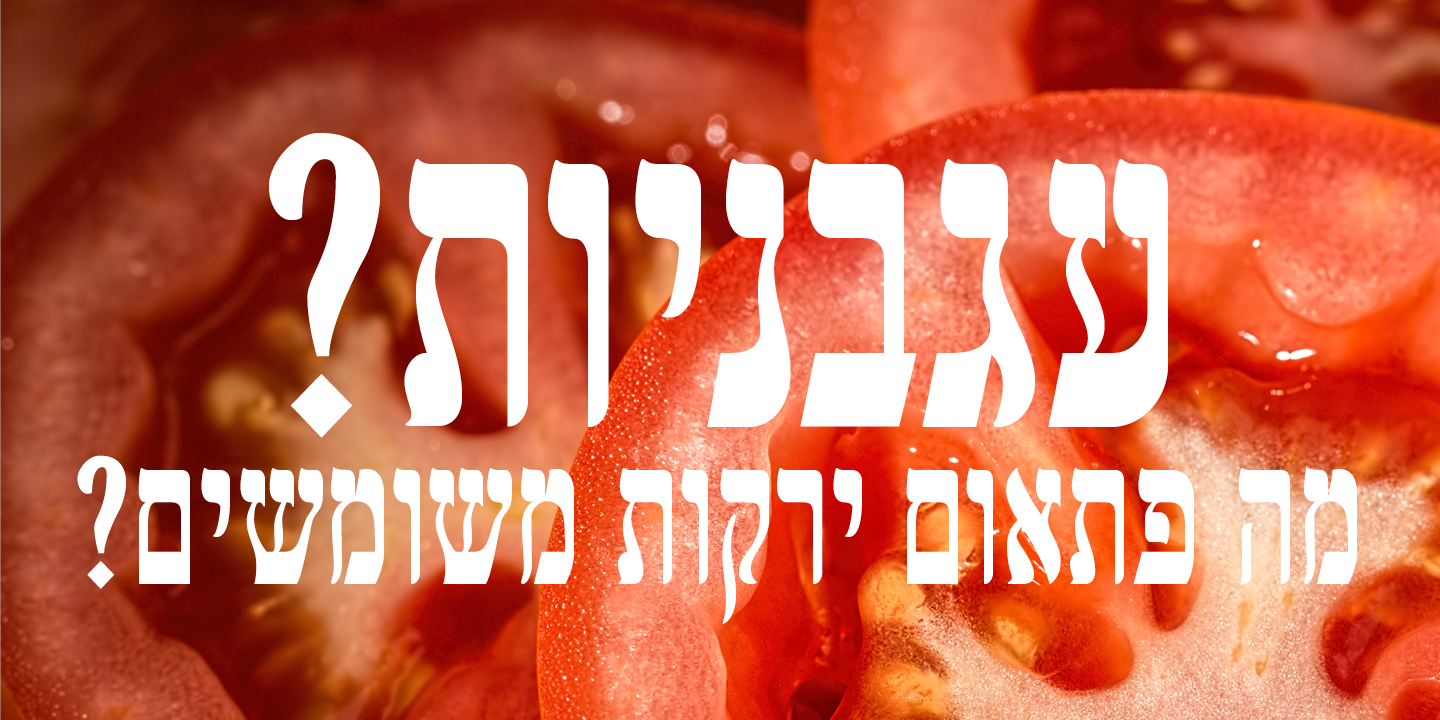
Etzada MF Font is perfect for modern Hebrew publications, multilingual corporate branding, international business communications, cultural diversity campaigns, Middle Eastern restaurant menus, religious ceremonial materials, academic research publications, international news platforms, diplomatic correspondence, multicultural event promotions, and any project that requires sophisticated multilingual character with cultural authenticity.
What makes Etzada MF Font exciting is its masterful bridging of traditional Hebrew typography with contemporary design sensibilities through carefully balanced letterforms that honor cultural heritage while embracing modern functionality. This sophisticated typeface features precise geometric proportions with cultural sensitivity that ensures excellent readability across multiple languages and diverse audiences. The font's multicultural character adds instant international credibility and cultural respect to any design, making it perfect for organizations celebrating diversity and global communication.
Etzada MF Font comes in multiple font families including Regular, Bold, Light, Condensed, Extended, and Cultural variations, offering designers comprehensive options to create multilingual compositions and achieve the perfect international aesthetic for culturally-diverse design projects.
Whether you're developing multicultural brand identity, creating international communication materials, or designing cross-cultural campaign graphics, Etzada MF Font Free Download provides the ideal solution for projects demanding authentic cultural character and multilingual sophistication. This versatile typeface excels in both print and digital applications where cultural presence is essential, ensuring your designs communicate international respect and multicultural understanding. The balanced character and cultural styling of Etzada MF Font make it an indispensable tool for designers who prioritize cultural diversity, international communication, and multilingual design excellence in their typographic selections.